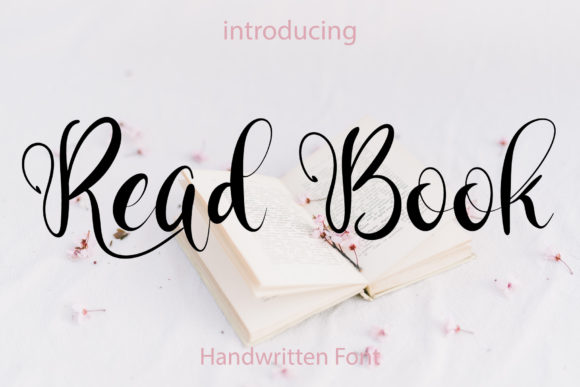
Indulge in the extraordinary allure of Read Book Font, a mesmerizing script font that will captivate your audience with its timeless elegance and undeniable charm. With every stroke, this font weaves a tale of sophistication and grace, inviting you to create captivating designs that resonate with your brand's unique story.
Crafted with the utmost care and precision by the renowned artist barurezeki10, Read Book Font embodies the essence of creativity and imagination. Its flowing curves and delicate flourishes evoke a sense of effortless beauty, making it the perfect choice for product packaging that demands attention or branding projects that seek to leave a lasting impression.
Beyond its visual appeal, Read Book Font possesses an unmatched versatility that empowers you to elevate your designs to new heights. Whether you seek to adorn magazine covers with a touch of timeless charm or create captivating social media content that captivates your audience, this font is the answer. It seamlessly adapts to a myriad of creative endeavors, ensuring that your message always commands attention.
For those seeking a font that adds a personal touch to their communication, Read Book Font presents an irresistible option. Its exquisite lines and graceful flow make it the perfect choice for email signatures that exude professionalism and style. With every email you send, you'll leave a lasting impression that sets you apart from the mundane.
Embrace the captivating allure of Read Book Font and embark on a creative journey where your designs will blossom with newfound beauty and sophistication. Let this extraordinary font ignite your imagination and inspire you to create masterpieces that transcend the ordinary.